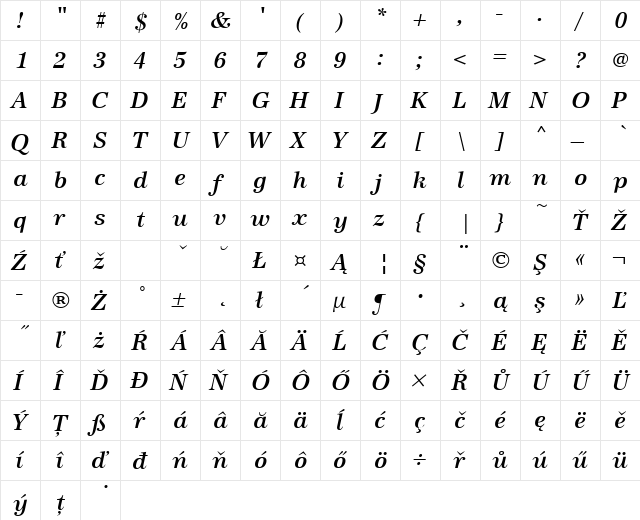
URWAntiquaTEEMed Italic Font Preview
URWAntiquaTEEMed Italic
URWAntiquaTEEMed Italic Font Details
Design Context for URWAntiquaTEEMed Typeface
URWAntiquaTEEMed takes a measured approach to typography — its balanced proportions and neutral character make it a reliable workhorse for both digital and print work. The dynamic lean of this cut emphasises speed and emphasis in any layout.